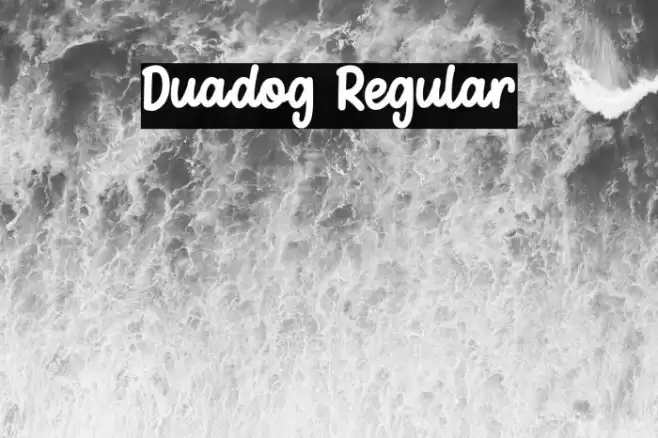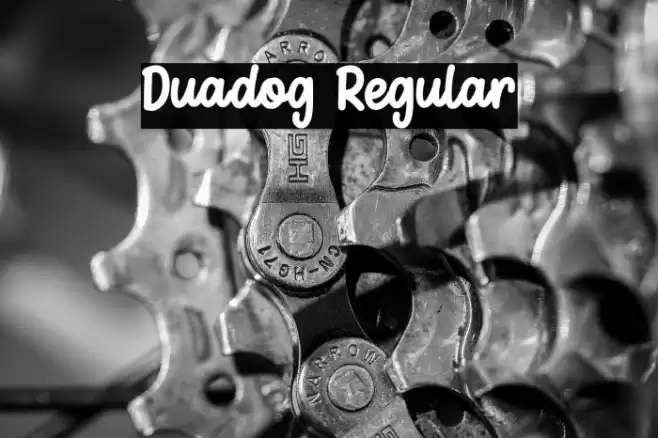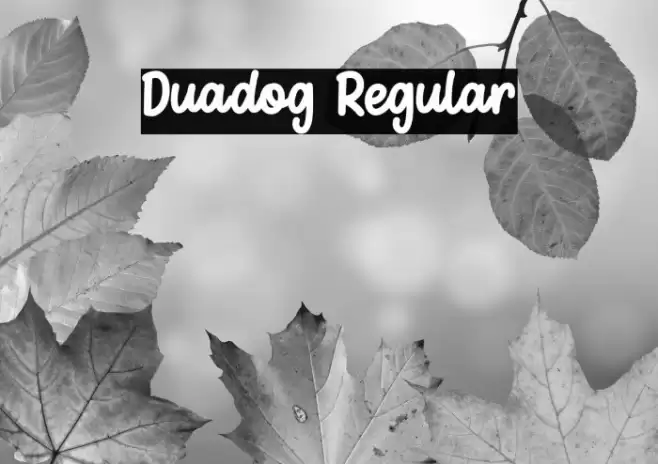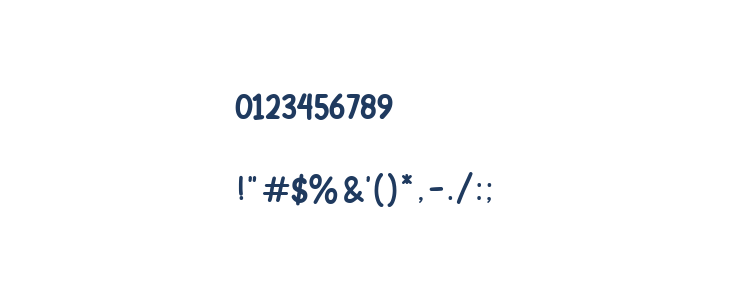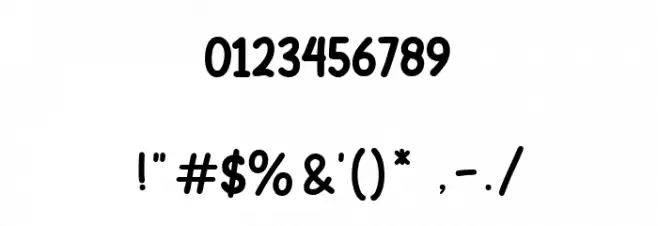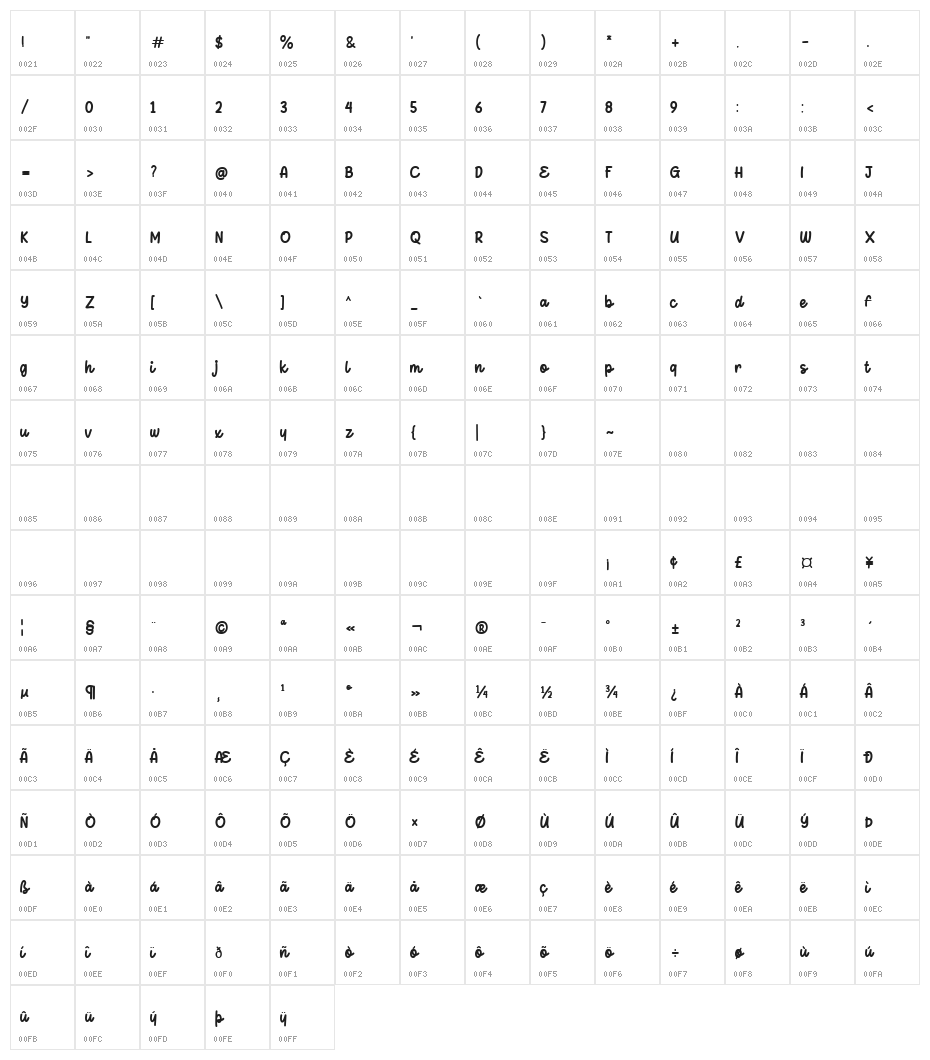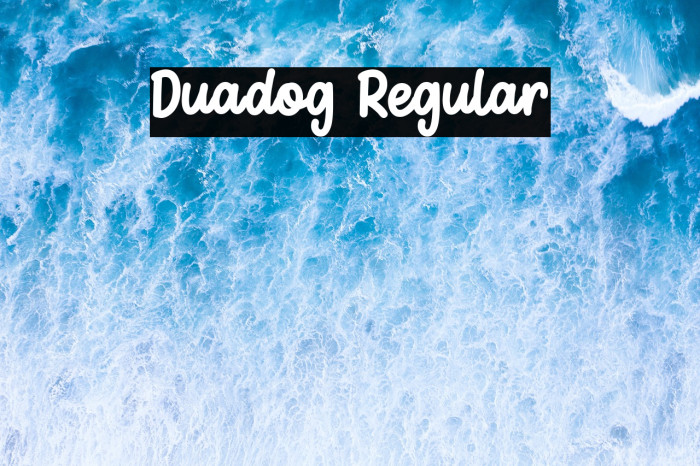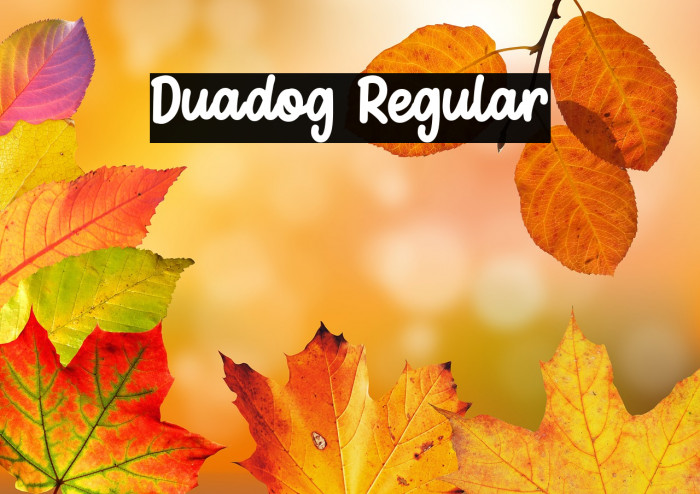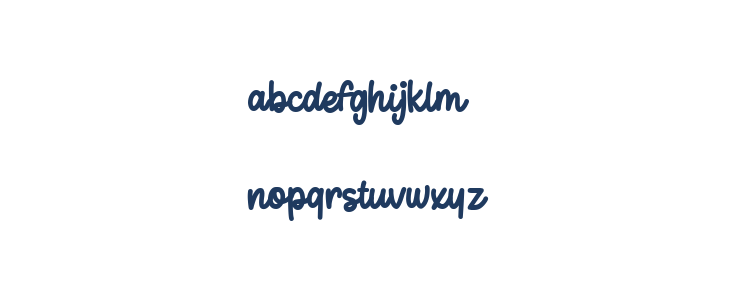
Duadog Regular Font
Duadog Regular Description
This font features a playful and casual handwritten style, characterized by its rounded and smooth letterforms. The uppercase letters maintain a consistent height, while the lowercase letters exhibit a slight slant, adding to the informal feel. The numerals are clear and easy to read, matching the overall aesthetic. Special characters are well-integrated, maintaining the font's cohesive look. The strokes are moderately thick, providing good legibility without sacrificing the font's friendly appearance.
A playful, casual handwritten font with rounded, smooth letterforms from Regular fonts.
- Proposed Projects: Ideal for children's books, greeting cards, playful branding, and social media graphics.
- Overall Style: Casual
- Use Case: Headlines, Logos, Informal text